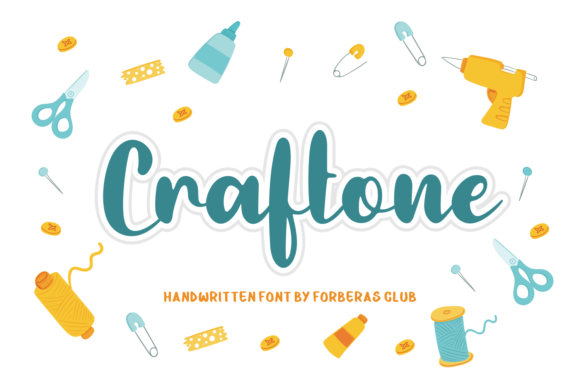
Unleash the magic of Craftone Font, an exquisite creation from Forberas Club, designed to be the perfect adornment for your wedding invitations. With its delightful, playful characters that dance across the page, this script font brings life and elegance to your heartfelt expressions of love and commitment.
Envision the beauty of your wedding invitations, adorned with the flowing strokes of Craftone. Each letter dances in harmony, creating an enchanting visual symphony that captures the joy and anticipation of your special day. Let this font carry your words, conveying the depth of your emotions and the excitement of the new chapter you're embarking upon.
Craftone Font's charm extends beyond wedding invitations. Its versatility invites you to add a touch of whimsy to your creative projects, whether it's greeting cards, social media posts, or branding designs. Its charming characters bring a touch of magic to any project, enchanting your audience and leaving a lasting impression.
Make Craftone Font your choice for creating captivating designs that resonate with hearts. Its meticulous craftsmanship ensures perfect readability, while its playful nature adds a spark of joy to your artistic endeavors. Embrace the creativity within you, let Craftone Font be your brush, and paint the world with beauty.